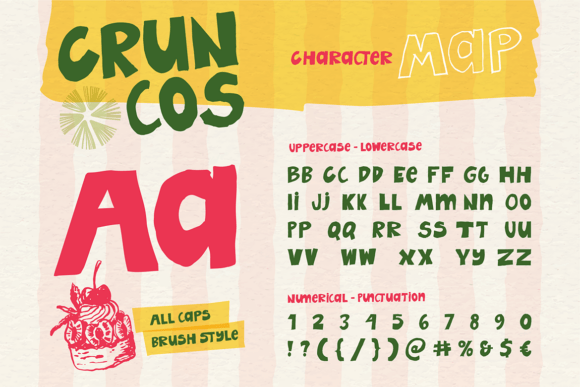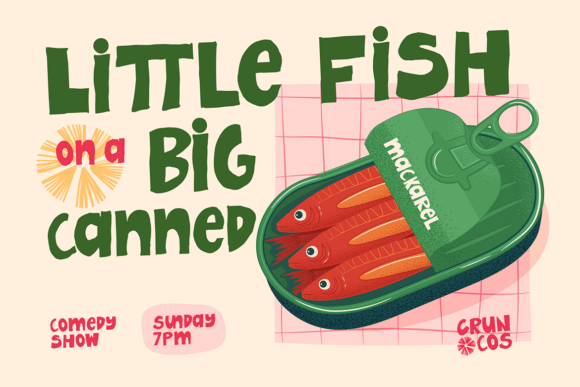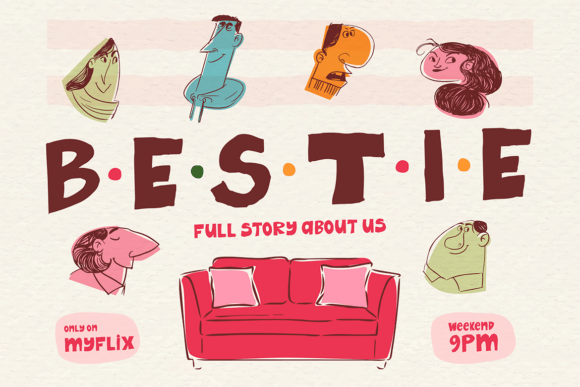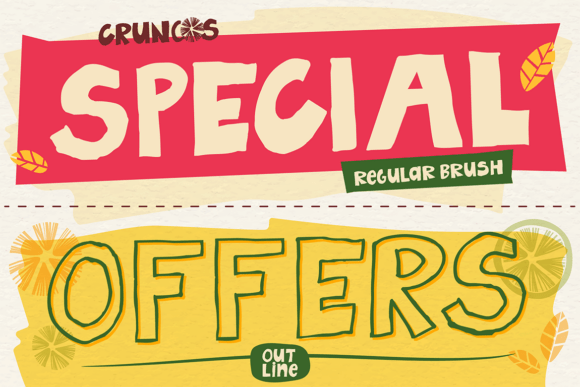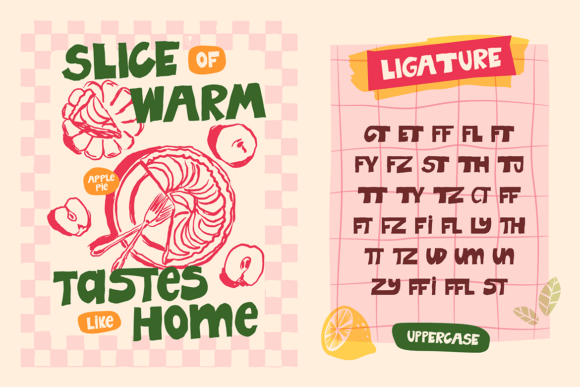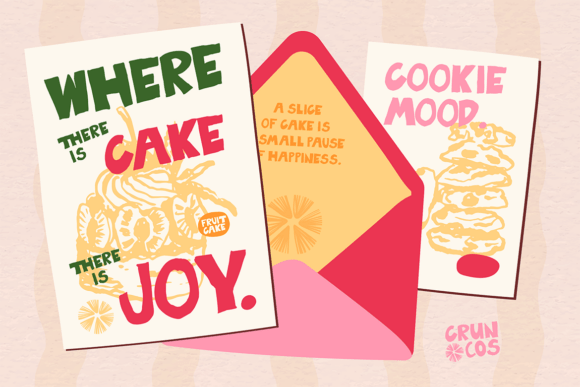
Introducing Cruncos Font: The Playful and Bold Brush Font for Creative Designs
Are you looking for a font that can add a touch of playfulness and personality to your designs? Look no further than Cruncos, a bold and playful brush font that is perfect for creative projects. Inspired by food packaging, café menus, posters, and cheerful branding, Cruncos delivers a quirky, crunchy, and friendly vibe that instantly grabs attention.
What Makes Cruncos Unique?
Cruncos is a hand-drawn font with a fun and playful feel. Designed in all caps, this font comes with two styles: solid brush and outline. This gives you more flexibility to mix and match in your designs, creating a unique and eye-catching look. The slightly rough edges and organic strokes of Cruncos make your text feel warm, expressive, and full of personality.
Cruncos is perfect for a wide range of design projects, including:
- Food & beverage branding: Add a touch of playfulness to your restaurant or food brand with Cruncos.
- Menu designs: Create eye-catching menus that showcase your dishes in a fun and appetizing way.
- Posters & flyers: Grab attention with bold and playful posters and flyers.
- Packaging: Add a personal touch to your product packaging with Cruncos.
- Social media graphics: Create engaging social media graphics that stand out from the crowd.
- Quotes, stickers, and playful headlines: Add a touch of personality to your quotes, stickers, and headlines.
Key Features of Cruncos Font
Here are some key features of Cruncos font:
- Playful and bold brush font with a fun, hand-drawn feel
- Designed in all caps
- Comes with solid brush style and outline style
- Slightly rough edges and organic strokes for a warm and expressive feel
- Perfect for food & beverage branding, menu designs, posters & flyers, packaging, social media graphics, and more
Why Choose Cruncos Font?
There are many reasons why you should choose Cruncos font for your design projects. Here are a few:
- Unique and eye-catching: Cruncos font is a unique and eye-catching font that will make your designs stand out from the crowd.
- Playful and fun: Cruncos font has a playful and fun feel that is perfect for creative projects.
- Flexible: Cruncos font comes with two styles, giving you more flexibility to mix and match in your designs.
Tips for Using Cruncos Font
Here are a few tips for using Cruncos font:
- Use it for headlines: Cruncos font is perfect for headlines and titles.
- Mix and match: Experiment with different styles and combinations of Cruncos font to create a unique look.
- Add a personal touch: Use Cruncos font to add a personal touch to your designs.
In conclusion, Cruncos font is a playful and bold brush font that is perfect for creative designs. With its unique and eye-catching style, Cruncos font is sure to grab attention and add a touch of personality to your projects. Whether you’re a designer, crafter, or DIY enthusiast, Cruncos font is a great choice for any project.